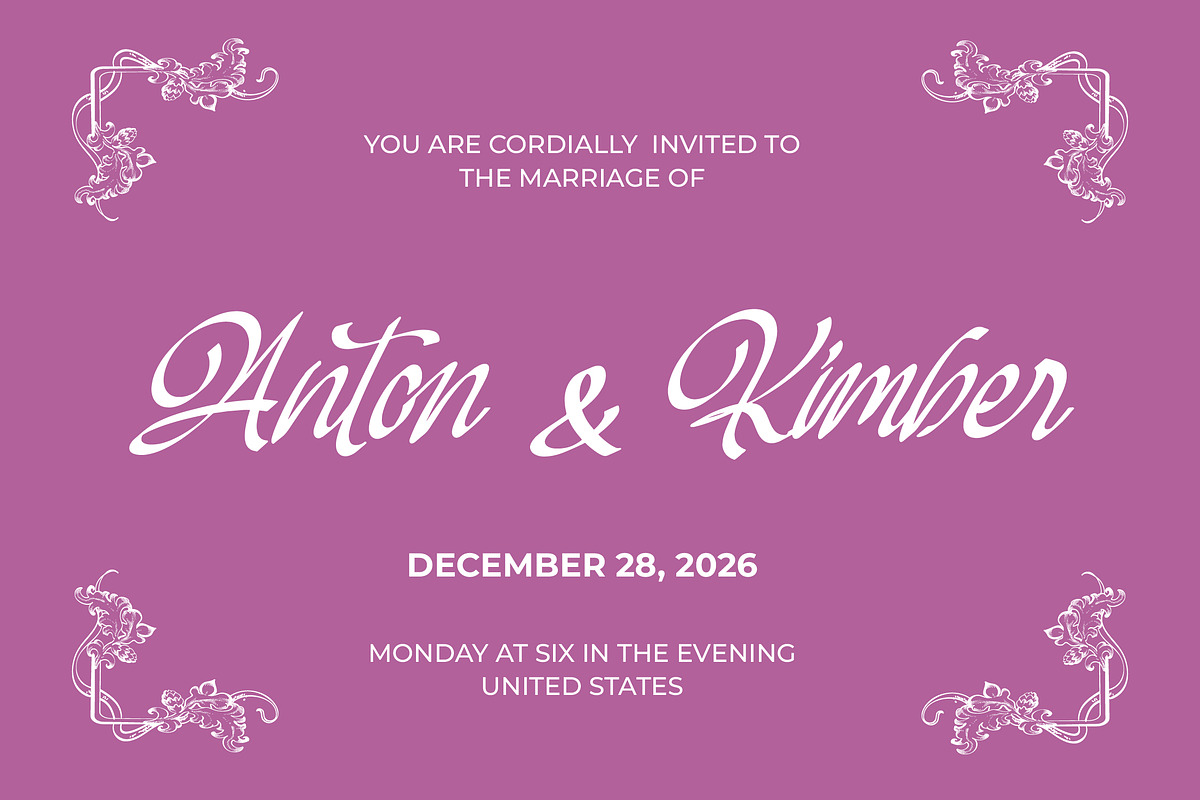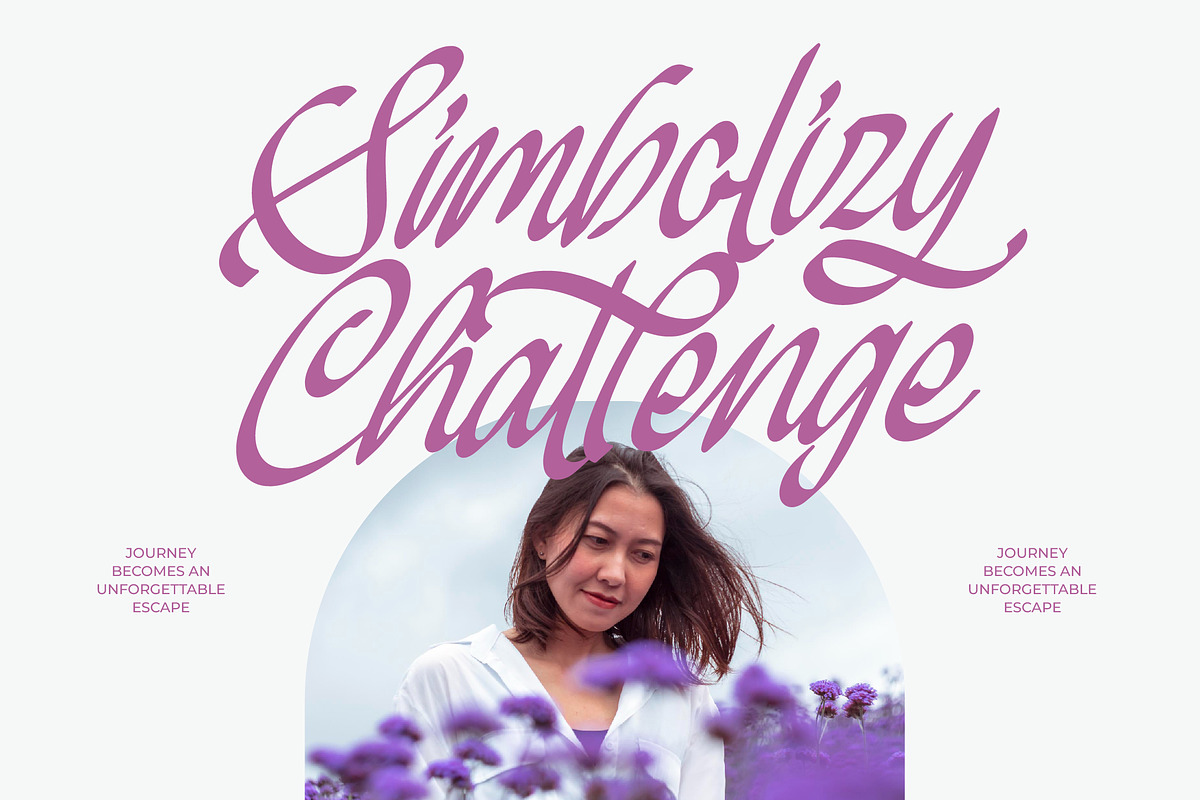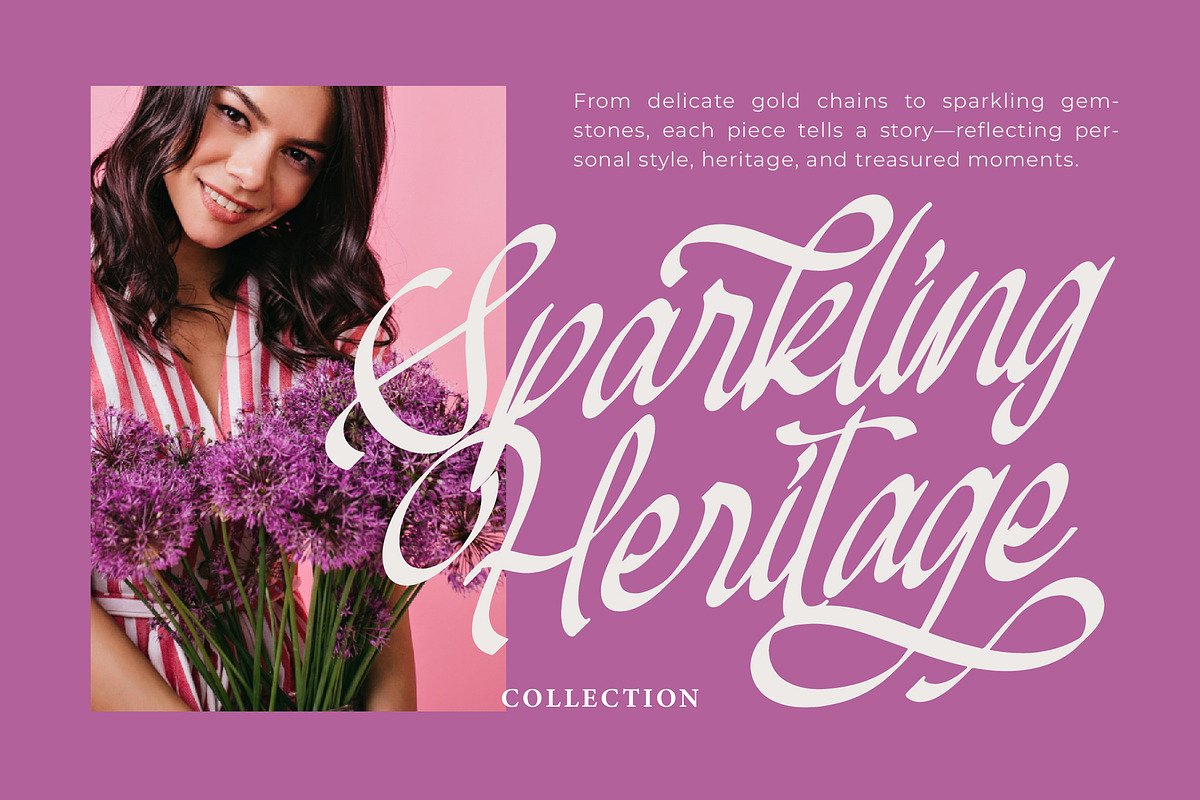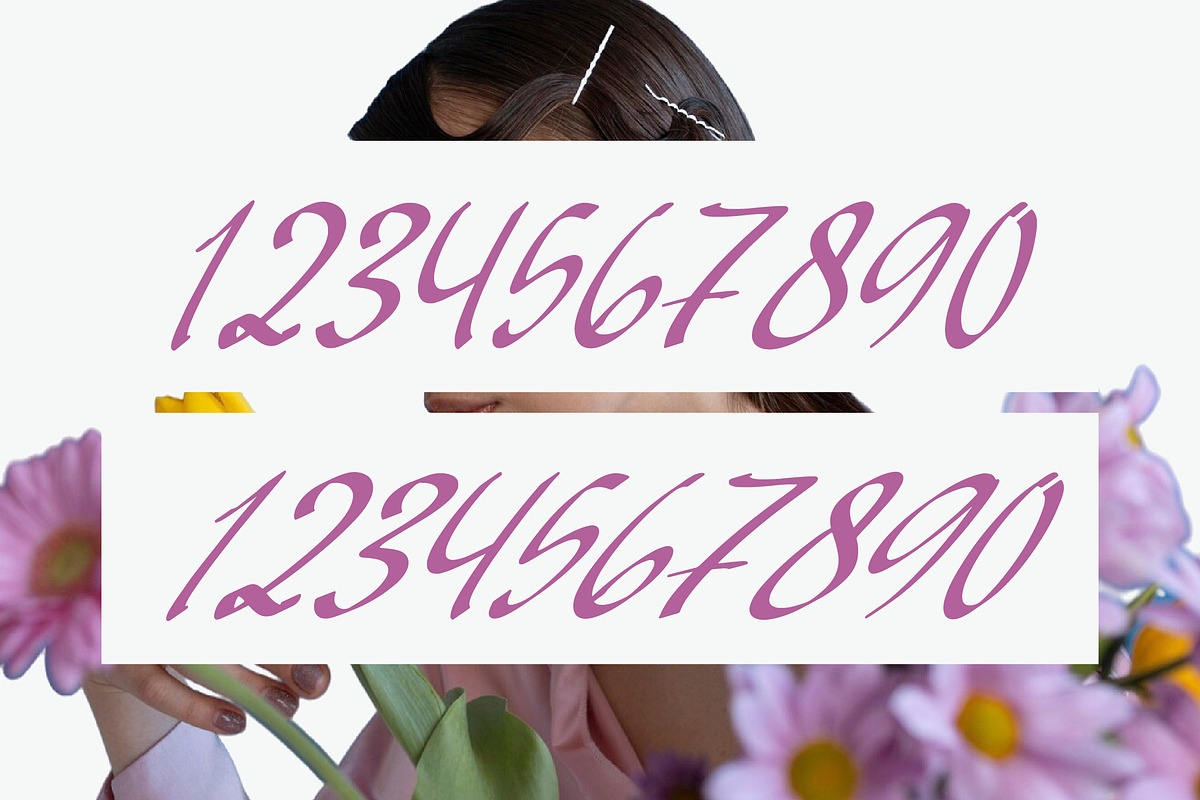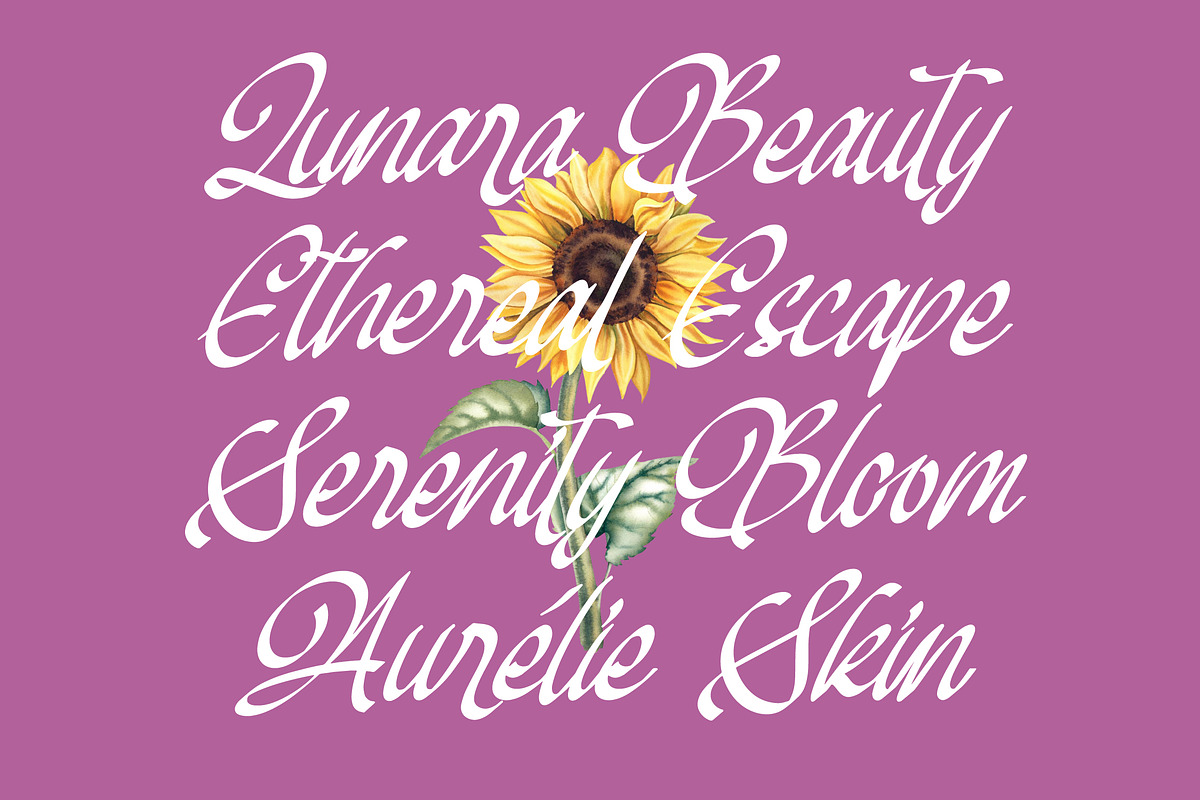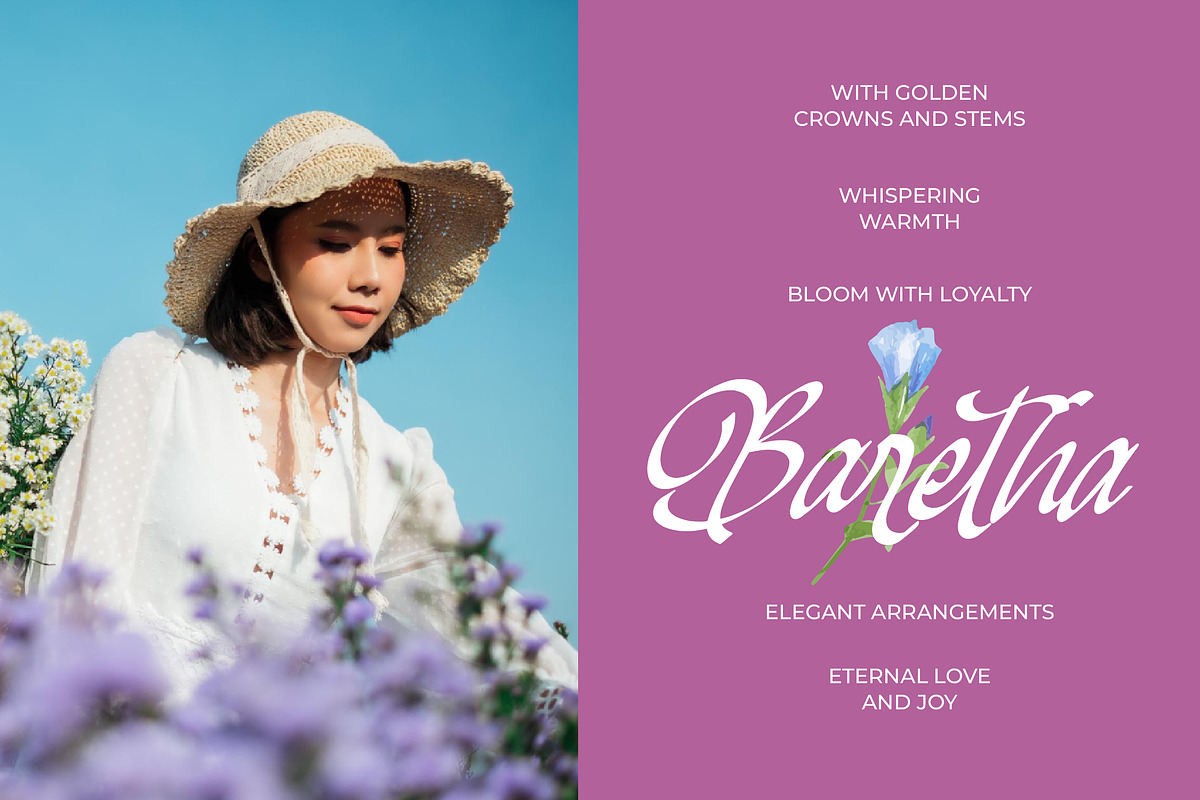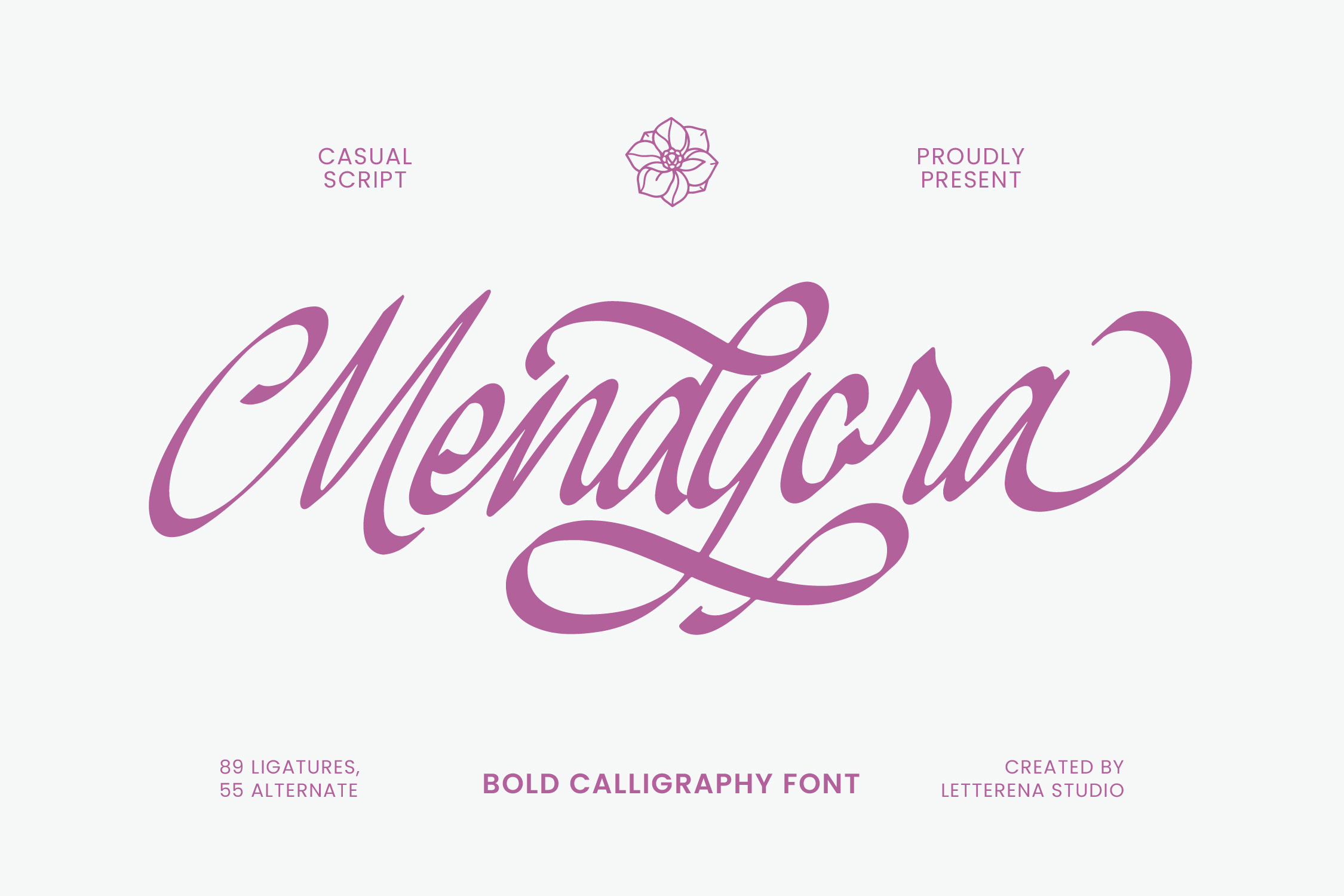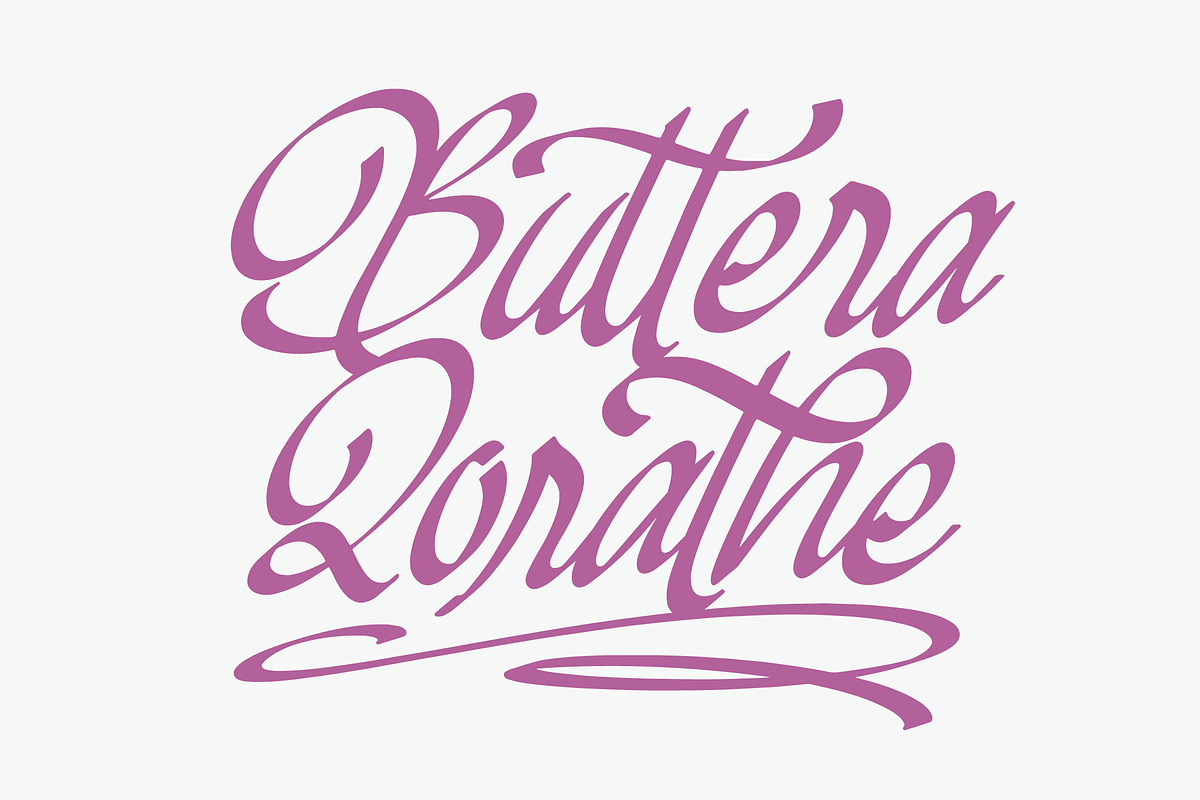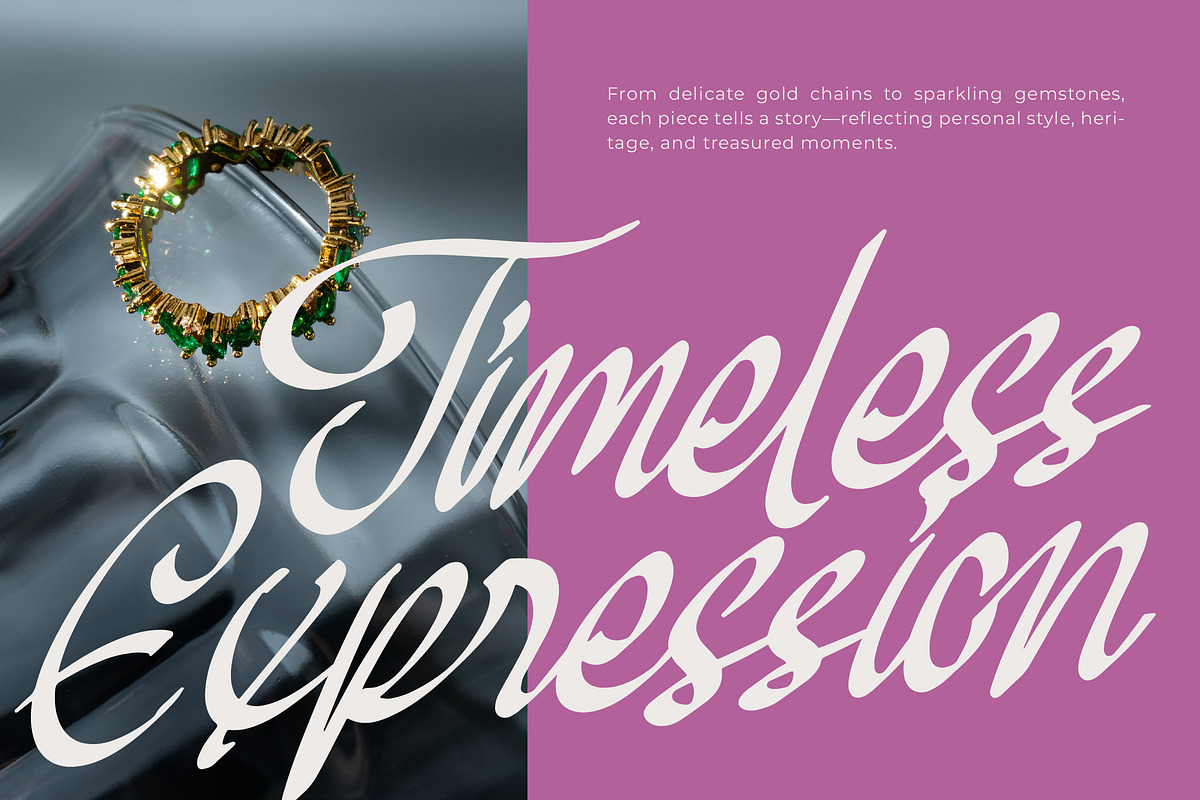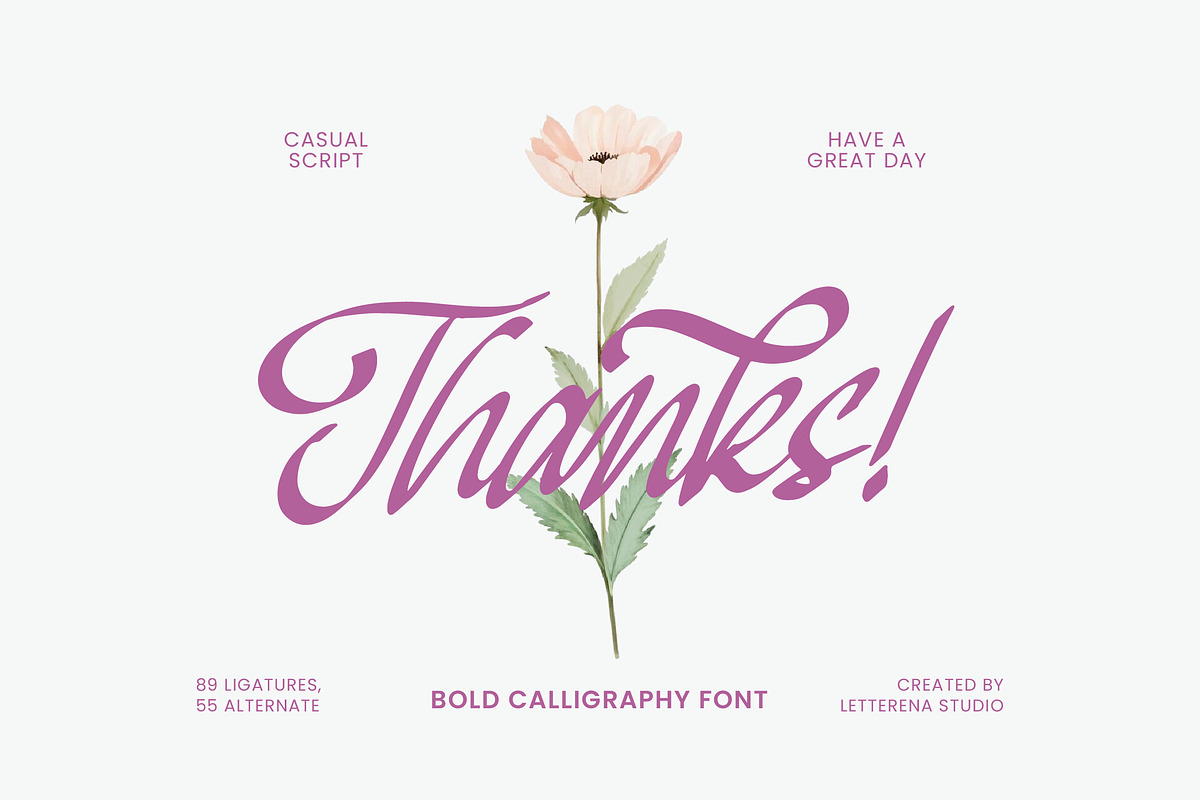
Mendyora Bold Calligraphy Font
Mendyora - Bold Calligraphy Font , from Letterena, is a Luxury Script font, suitable for any projects such as: logos, branding projects, homeware designs, product packaging, mugs, quotes, posters, shopping bags, t-shirts, book covers, name card, invitation cards, greeting cards, label, photography, watermark, special events, and all your other luxury and beautiful projects that need a Luxury Script taste.
- 89 Ligature 55 Alternate & Swashes